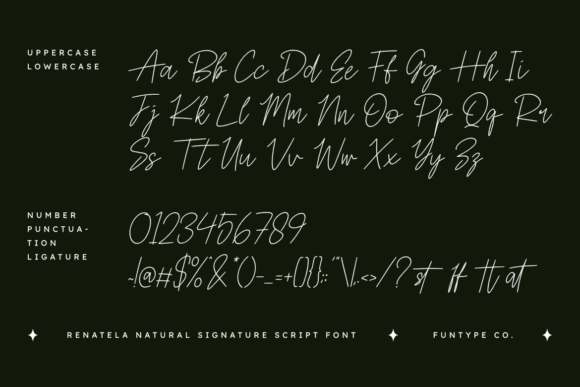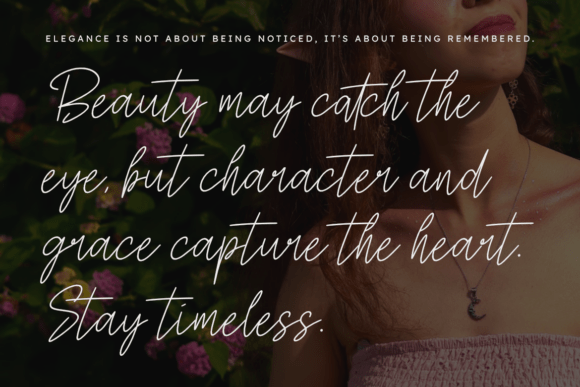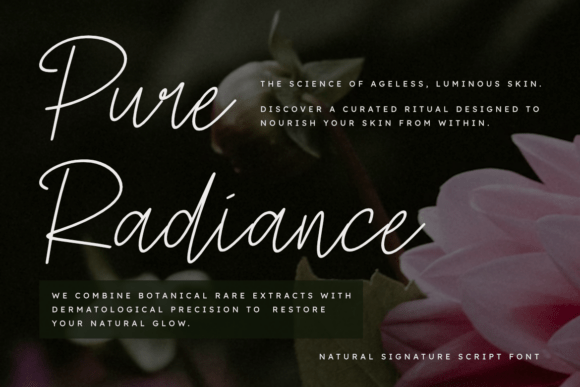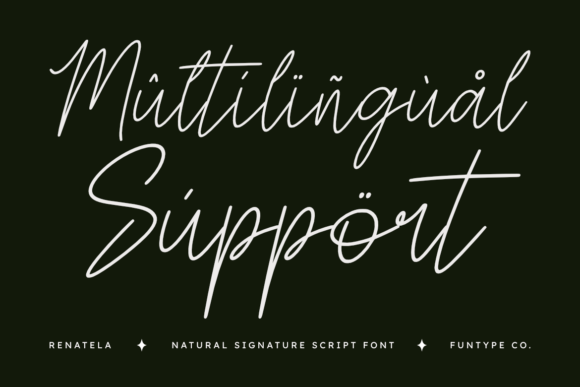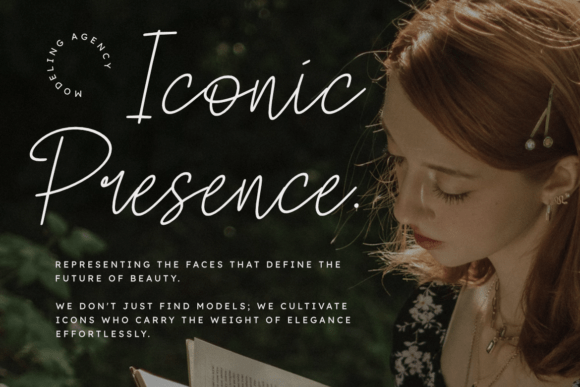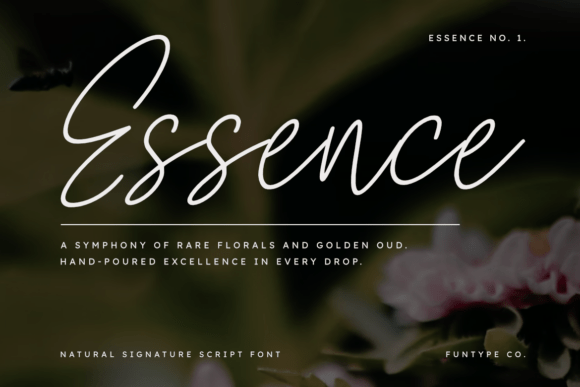
Introduction to Renatela Font
As a designer, you know the feeling of staring at a blank canvas, waiting for that perfect spark to ignite your creative project. It’s the moment when you finally stumble upon the ideal font that elevates your design from good to great. For many, this moment is synonymous with the discovery of the Renatela Font, a bold and elegant signature script that adds a touch of sophistication to any visual.
Renatela Font is more than just a design resource – it’s a game-changer for designers seeking to make a lasting impression. With its natural flow and refined structure, this font is perfect for strong headlines, modern posters, wedding invitations, photography watermarks, branding, and high-impact advertising. Its clean and confident design gives your visuals a striking and professional look, making it a valuable addition to any design arsenal.
Key Features of Renatela Font
- Unique, elegant design making it ideal for creative projects and high-end design work.
- Perfect for use in logos, branding materials, and other design elements where a sophisticated look is required.
Honest Review: Renatela Font
As a designer, I’m always on the lookout for high-quality design resources to enhance my creative projects. Recently, I stumbled upon the Renatela Font, and I’m excited to share my honest review with you.
What works well: ✨ The Renatela Font offers a beautiful, elegant design that’s perfect for various creative projects. Its transparent background makes it easy to overlay on images or use as a text overlay, giving your design a clean and modern look. The font is also highly customizable, allowing you to adjust its size, color, and style to fit your design needs.
- High-quality design with a transparent background
- Perfect for creative projects, such as branding, advertising, and web design
- Easy to customize with various size, color, and style options
Overall, I’m impressed with the Renatela Font’s elegant design and high-quality features. While it may have some limitations, it’s a great resource for designers working on creative projects. I’d definitely recommend it to anyone looking for a beautiful, easy-to-use font.
The Renatela Font is a high-quality design resource that offers a unique and elegant touch to any creative project. With its transparent background and modern design, it’s perfect for graphic designers, artists, and anyone looking to add a professional touch to their work.
Tips for Getting the Most Out of Renatela Font
To get the most out of the Renatela Font, try using it in combination with other high-quality design resources, such as graphics and textures. Experiment with different font sizes and styles to create a unique and eye-catching design.
The Renatela Font is perfect for a variety of creative projects, including:
- Website design and development